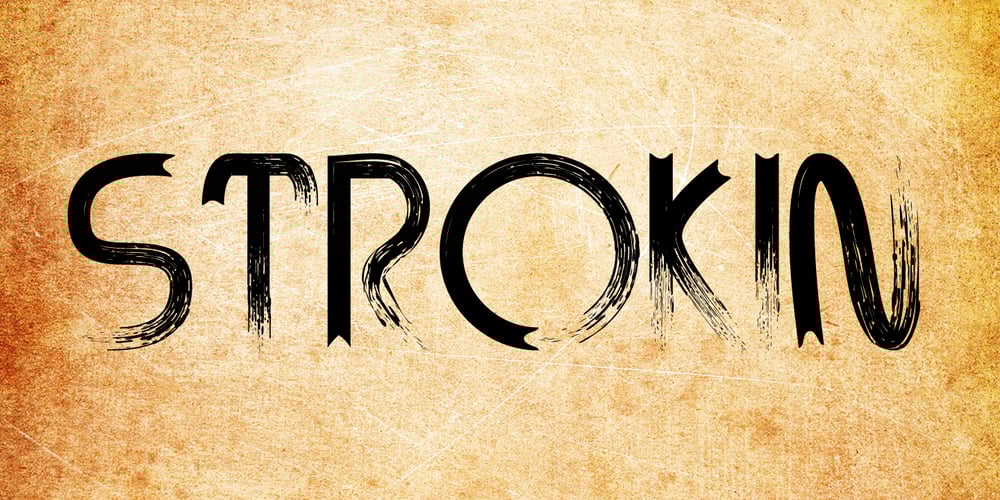
STROKIN Font Family was designed by published by AdultHumanMale. STROKIN contains 1 styles and family package options. STROKIN is an inky, messy, Omnicase display font. It’s part charcoal part paint strokes, reversed in lighter tones it looks like chalk, add a splash a red and it starts to look like blood. It has over 250 glyphs including all those extra pesky foreign features. OpenType coded, It has various letter pairings that interlock automatically to create a more randomized, bespoke feel to your copy. Hope you like it.